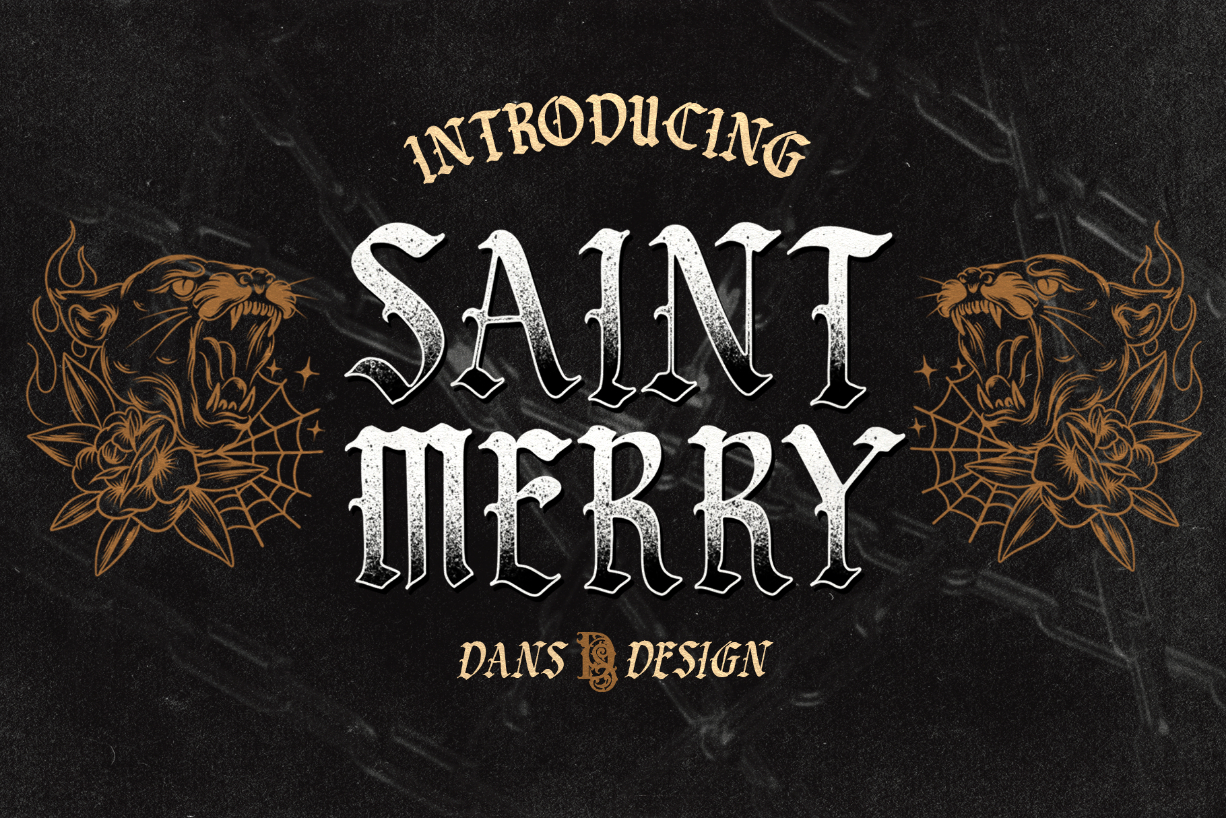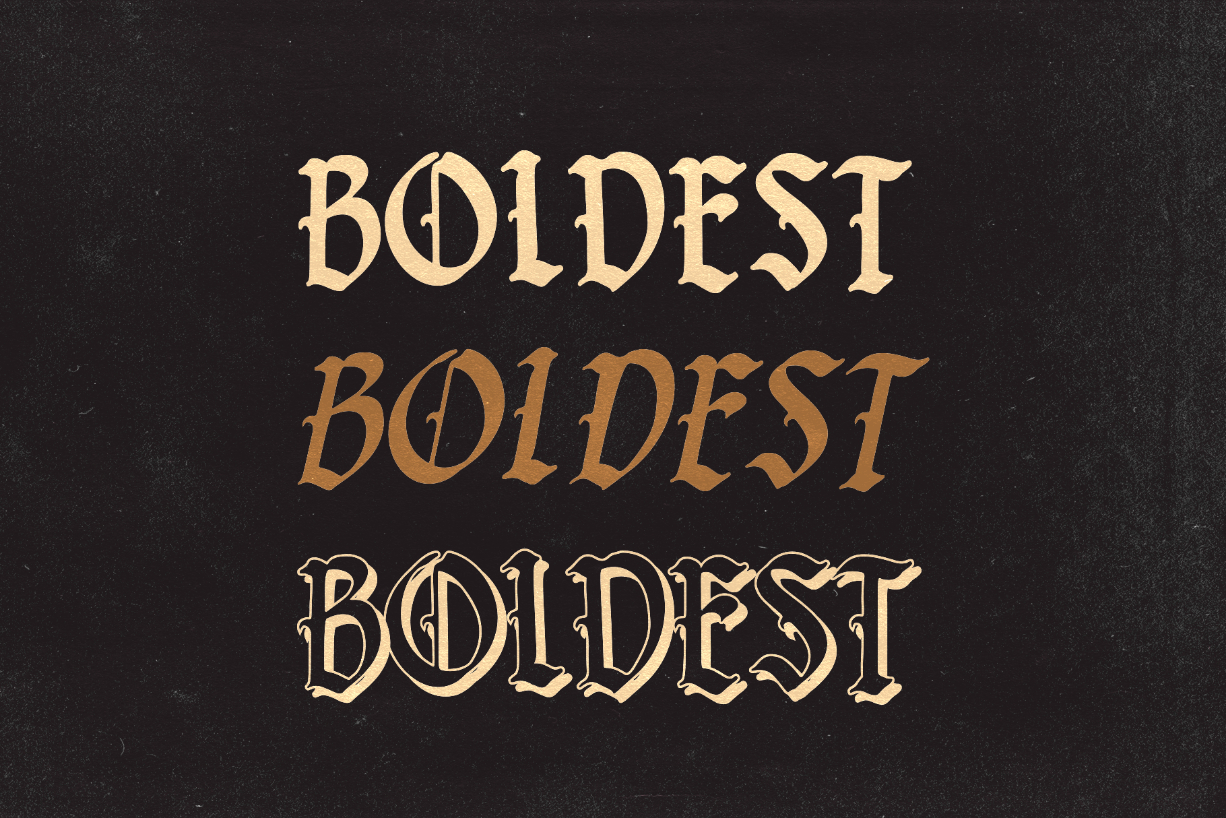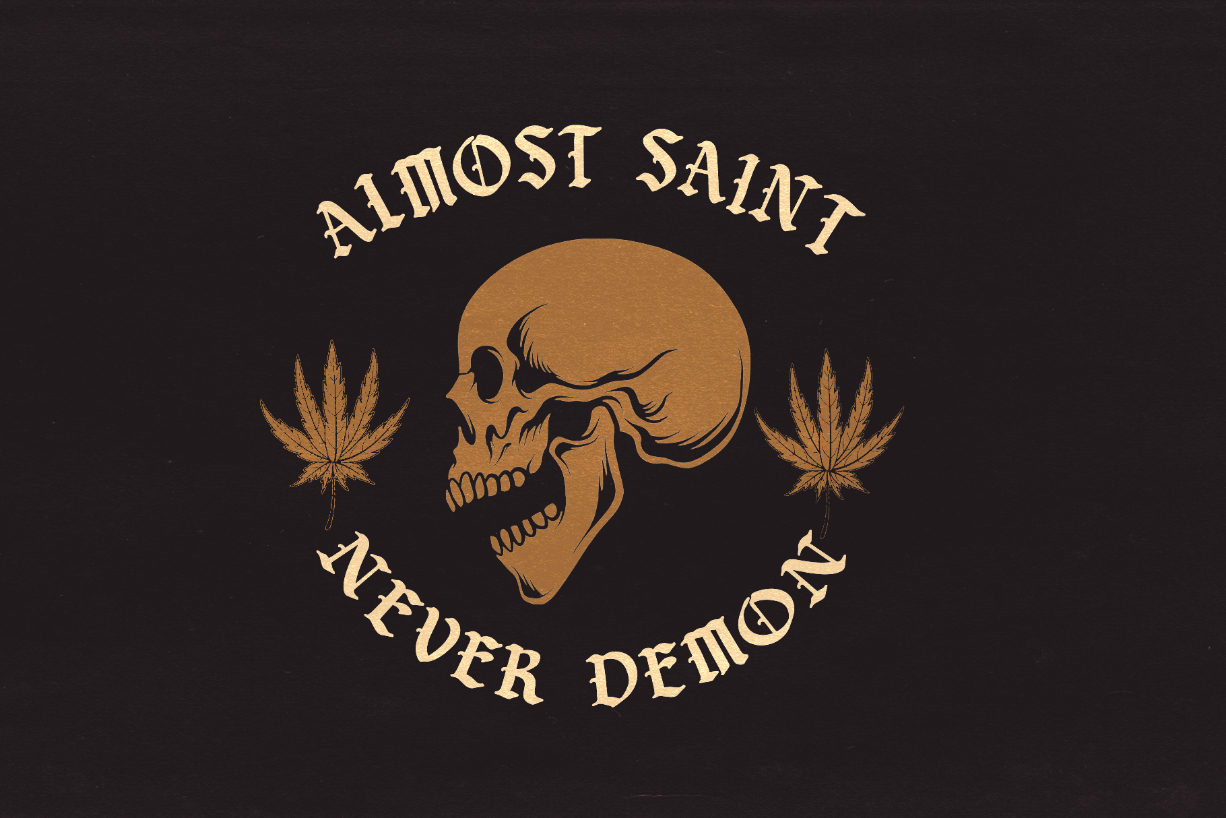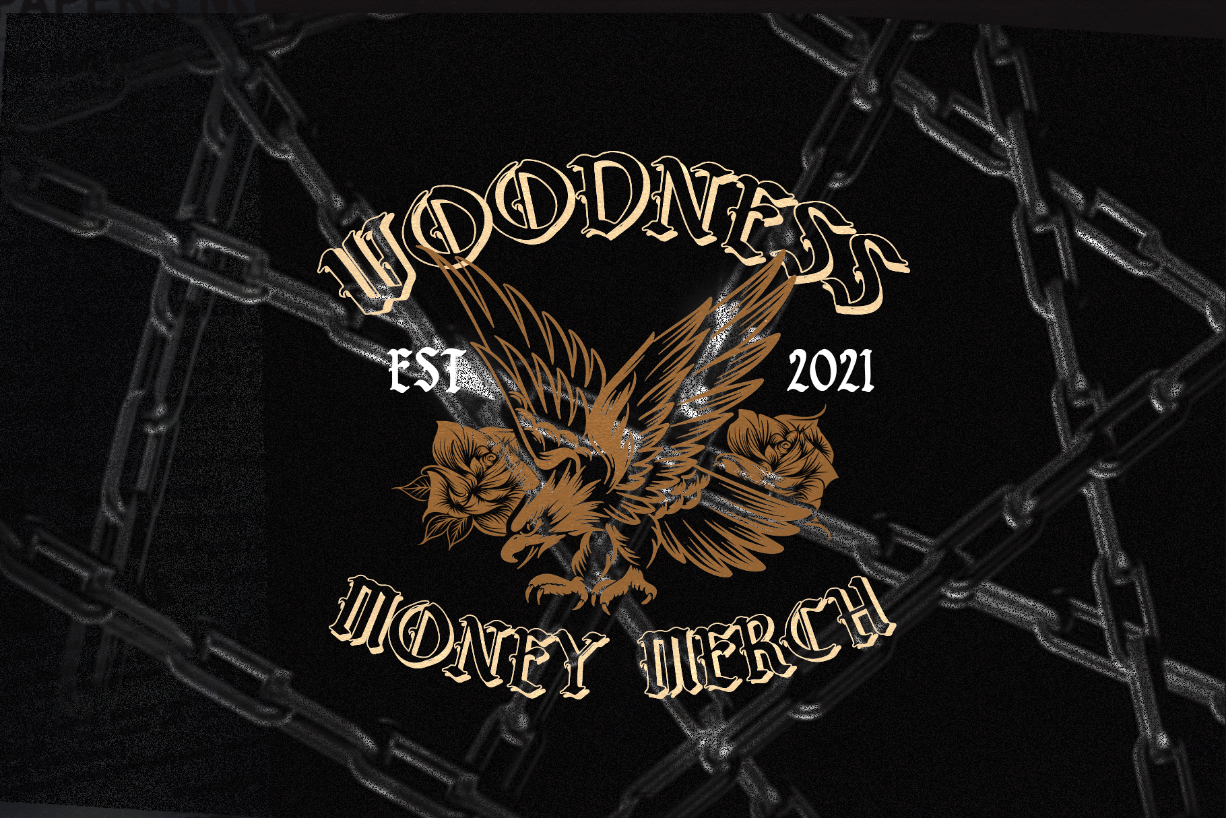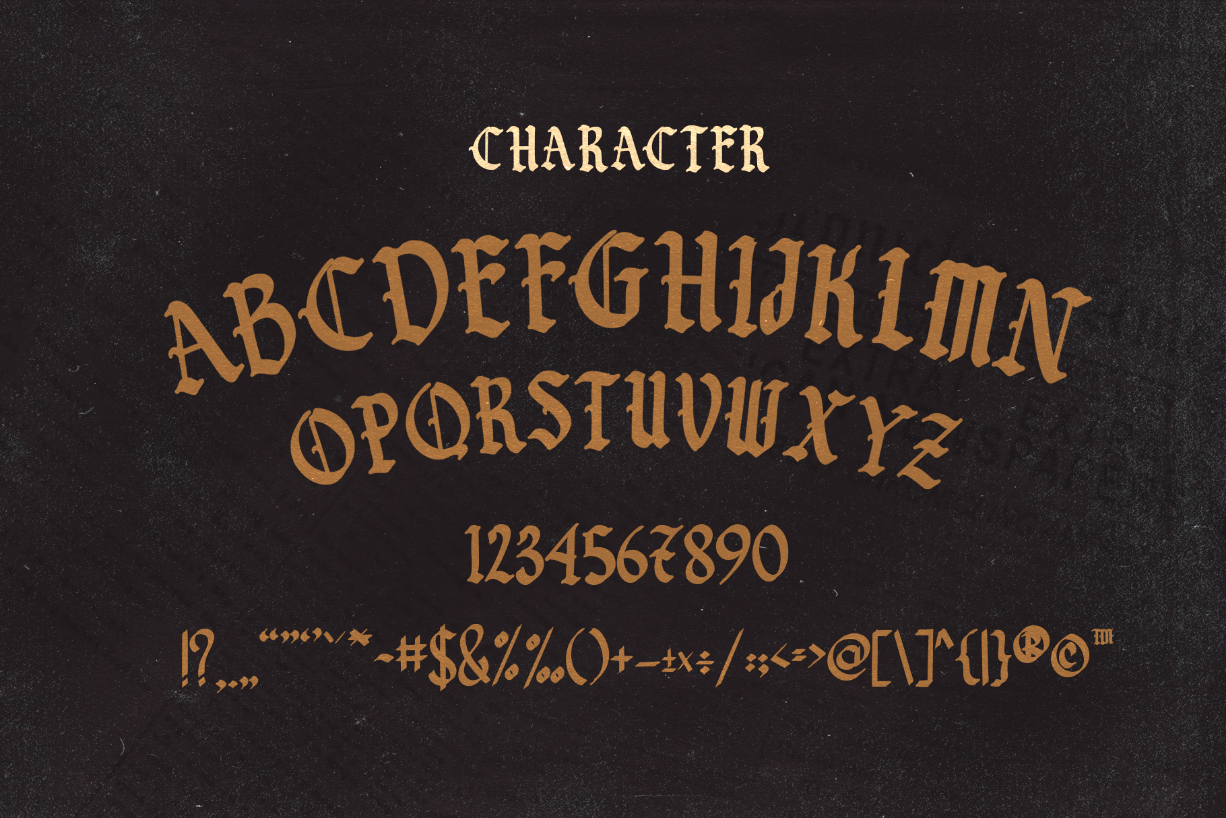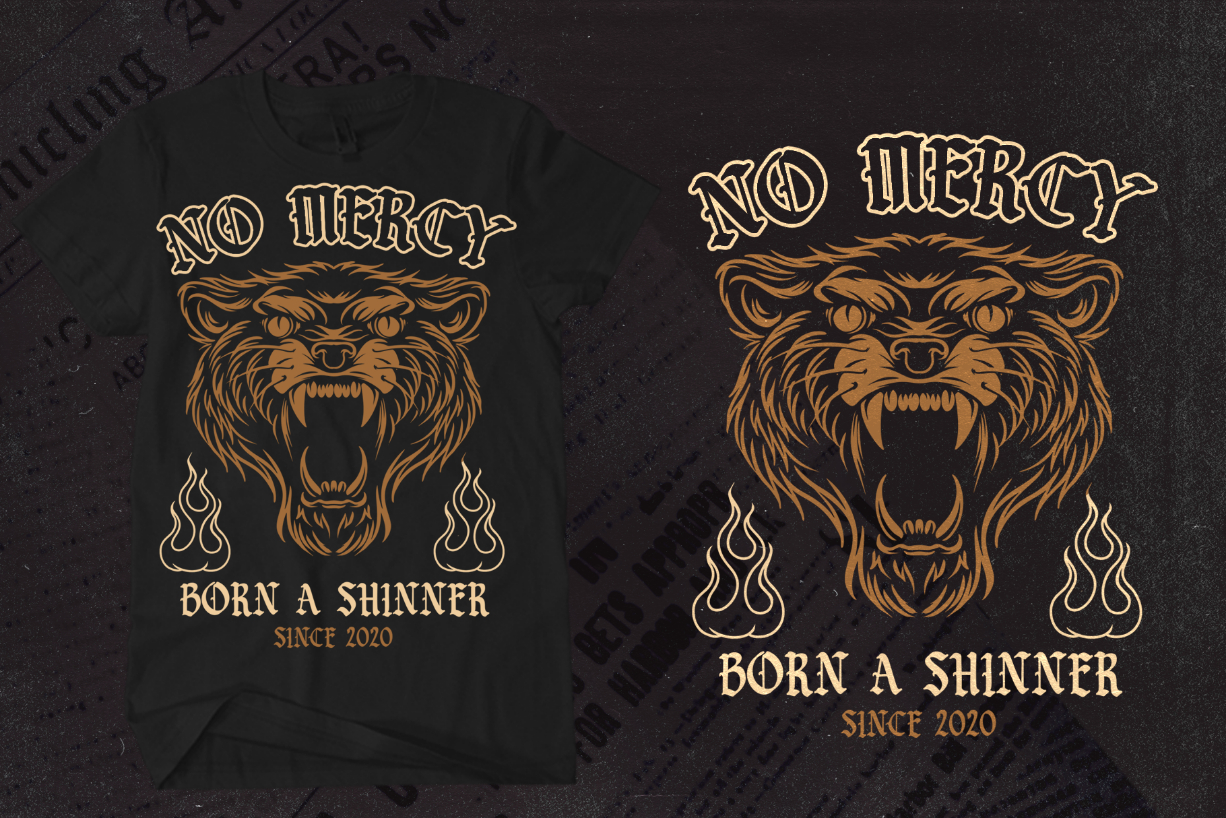
Saint Merry Font
About Saint Merry Font
Saint Merry is a unique blackletter font with a vintage feel. This font is the ideal font for adding an adventurous and authentic feel to your next design idea!